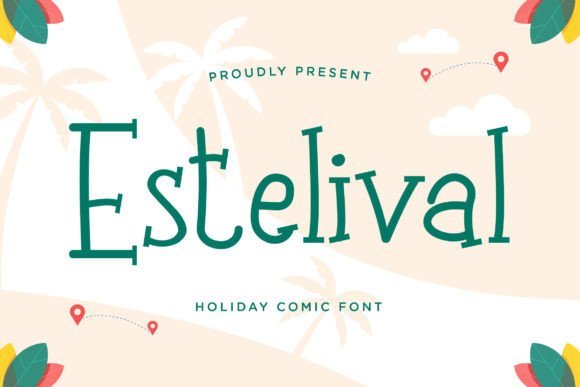
Deck the Halls with a Dose of Whimsy
As the holiday season approaches, designers are on the lookout for the perfect font to capture the magic and joy of the season. And then it hits you – a spark of inspiration, a flash of creativity, and suddenly, the perfect font is born. Introducing the “Estelival Font”, a holiday comic font that brings a breath of fresh air to your seasonal designs.
With its quirky letterforms and cheerful demeanor, the “Estelival Font” is the perfect companion for crafting greeting cards, party invitations, festive posters, or social media graphics. Its playful personality and comic-inspired style make it a valuable asset for designers looking to add a touch of fun and lightheartedness to their projects. Whether you’re a seasoned pro or a holiday design newbie, the “Estelival Font” is sure to spread cheer and happiness wherever it’s used.
- Font Family: Estelival is a serif font family designed for both body text and display purposes.
- Unique Characteristics: Estelival features a unique blend of elegance and readability, making it suitable for various design applications, including books, magazines, and corporate materials.
Estelival Font Review
As a designer, I’ve had the chance to work with the Estelival Font, and here’s my honest take on it.
- Unique Character: Estelival Font has a distinct, elegant style that sets it apart from other fonts.
- High-Quality Rendering: The font renders well on various devices and screen sizes, ensuring a consistent look.
- Legibility: Despite its flair, Estelival Font is highly legible, making it suitable for body text and headings.
- Not Ideal for Sans-Serif Text: Estelival Font is a serif font, which might not be the best choice for sans-serif text or modern designs.
- Limited Font Sizes: While it looks great at medium to large font sizes, Estelival Font can appear blurry or distorted at smaller sizes.
Estelival Font is a beautiful, elegant choice for designs that require a touch of sophistication. However, it’s essential to consider its limitations when choosing a font for your project. If you’re looking for a unique, high-quality font for a specific design style, Estelival Font might be an excellent choice. But if you need a versatile font for everyday use, you might want to consider other options.
Tips for Getting the Most Out of Estelival Font
For optimal results, use Estelival Font in combination with other elegant and minimalist design elements. Experiment with different font sizes, colors, and arrangements to create visually appealing and professional-looking designs.
Estelival Font is suitable for a variety of design projects, including:
- Business cards and presentations
- Editorial and magazine design